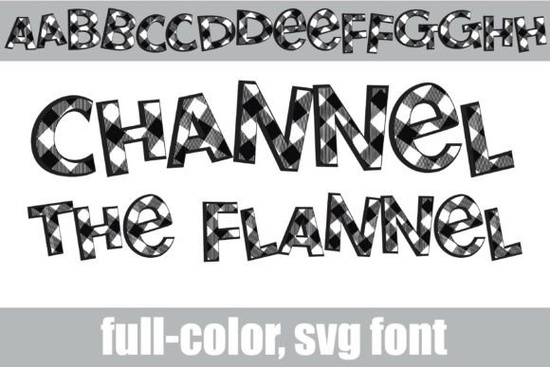
If you're looking for a font that instantly brings warmth and rustic charm to your seasonal designs, Channel the Flannel Font is a thoughtful, well-crafted choice especially if you work with holiday apparel, cabin-themed decor, or cozy social media graphics. It’s not just another decorative typeface: it’s a full-color SVG font built with intention, where every uppercase letter is filled with an authentic black-and-white buffalo plaid pattern and shaped by hand-drawn, slightly uneven outlines. That subtle irregularity? It’s what keeps it feeling human and handmade not sterile or over-processed.
What makes Channel the Flannel different from other rustic fonts?
Most “lumberjack” or “cabin-core” fonts rely on distressed edges or wood-grain overlays effects you’d need to layer manually in design software. Channel the Flannel builds that texture directly into the letterforms themselves. Because it’s an SVG font, the plaid fills each character as vector data, so it scales cleanly at any size without pixelation or extra steps. You type, and the pattern appears no clipping masks, no swatches to apply, no guesswork about alignment.
This matters most when you’re designing for real-world use: think printed gift tags that need crisp detail at 1.5 inches wide, or heat-transfer vinyl cuts where clean inner edges prevent weeding errors. The warm, grounded stance of the letters also gives them strong visual weight helpful when your text needs to hold up against busy backgrounds like knitted textures or forest photography.
Who uses this font and where does it fit best?
Independent crafters and small-batch sellers often reach for Channel the Flannel when building cohesive seasonal collections. For example:
- Print-on-demand shops adding winter-themed mugs, sweatshirts, or tote bags especially those leaning into “hygge,” “cabin life,” or “quiet winter” aesthetics
- Boutique stationery makers creating custom Christmas cards, family photo backdrops, or holiday market signage
- SVG cut-file designers bundling rustic-themed elements for Cricut and Silhouette users
- Social media creators crafting Instagram story headers or Pinterest pins around cozy fall recipes or DIY sweater patterns
It pairs naturally with neutral palettes (cream, charcoal, deep forest green) and works well alongside simpler sans-serif fonts for body text giving you contrast without clashing. Just avoid pairing it with other heavily textured display fonts; let it be the quiet focal point.
How does it compare to similar options on Creative Fabrica?
If you’ve browsed our collection of colorful fonts, you might notice how Channel the Flannel Font sits alongside others like the Soccer Bracelet Font but serves a very different purpose. While Soccer Bracelet leans playful and sporty with bright gradients and bouncy energy, Channel the Flannel is intentionally grounded, muted, and tactile. Neither is “better”; they just answer different creative needs.
You’ll also find other flannel-inspired fonts online, but many are bitmap-based or lack true SVG support. That means scaling issues, limited editing flexibility, or compatibility gaps with tools like Adobe Illustrator or Cricut Design Space. Channel the Flannel avoids those pitfalls by shipping as a properly engineered SVG font file tested across major platforms and ready to drop into your workflow.
- It’s uppercase-only no lowercase letters, numerals, or punctuation included. Plan your layout accordingly, or pair it with a complementary font for mixed-case needs.
- Works best at medium-to-large sizes under 36pt, the plaid detail may blur or lose clarity depending on your output method (especially on low-res screens or thermal printers).
- Test your export settings some platforms (like Canva) don’t fully support SVG fonts yet. If you’re seeing solid fills instead of plaid, try opening in Illustrator or Affinity Designer first, then exporting as PDF or PNG.
Next step: Try typing “COZY”, “WINTER”, or “HOME” in your design app using Channel the Flannel Font. Then, set it beside a clean sans-serif like Montserrat or Poppins at the same size notice how the contrast creates instant mood and hierarchy. That’s your cue to start building something quietly festive, thoughtfully crafted, and unmistakably warm.